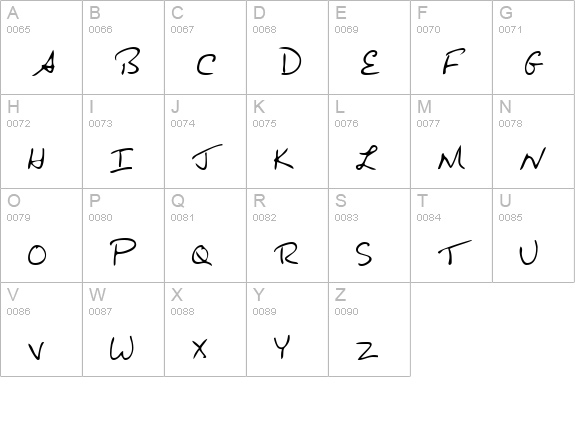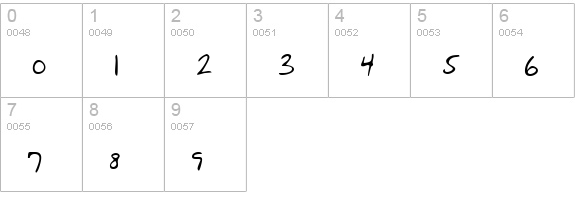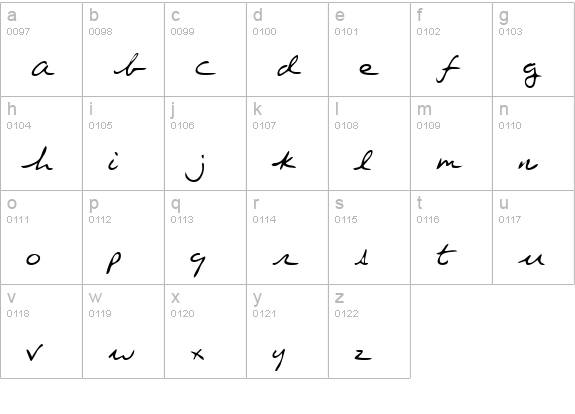
EdgertonsHand Regular Font Details
EdgertonsHand Regular is the standard, neutral variant in the EdgertonsHand typeface family \xE2\x80\x94 well suited to general body text, paragraphs, and standard typographic work.
EdgertonsHand Regular font is a charming and versatile typeface that brings a touch of elegance and sophistication to any design. This font exudes a sense of warmth and friendliness, making it perfect for a wide range of projects. With its carefully crafted letterforms and subtle curves, EdgertonsHand Regular font captures the essence of handwritten script while maintaining legibility and clarity. It strikes the perfect balance between classic and contemporary, making it suitable for both traditional and modern designs. Whether you're designing wedding invitations, branding materials, or social media graphics, EdgertonsHand Regular font adds a personal and unique touch to your creations. Its flowing strokes and delicate details create a sense of authenticity that is sure to captivate your audience. One of the best things about EdgertonsHand Regular font is that it is freely available to download at FontsMarket.com. This means that you can easily access and use this beautiful typeface without any cost or hassle. Its availability as a free font allows designers and creatives to explore its potential and unleash their creativity without any restrictions. So, if you're looking for a versatile font that combines elegance, legibility, and a touch of personal charm, look no further than EdgertonsHand Regular font. Download it for free at FontsMarket.com and elevate your designs to new heights.